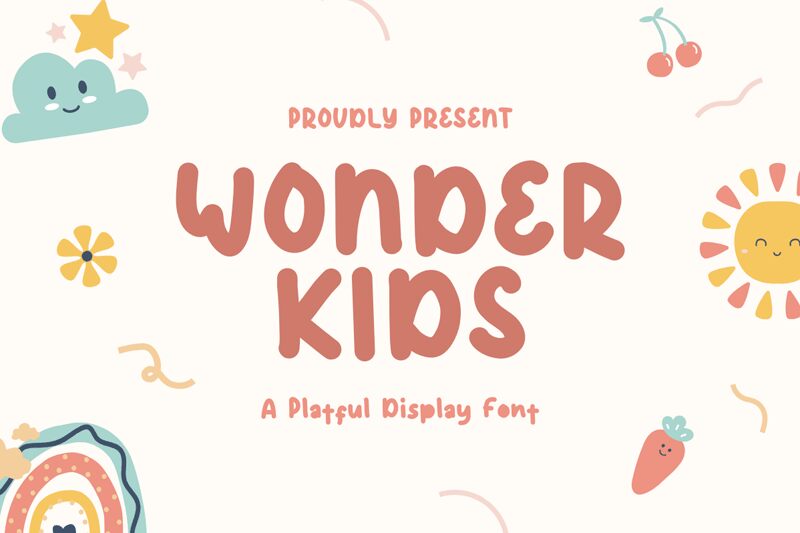
Wonder Kids font is a free comic font by Muhammad Yafinuha with a whimsical and casual visual style. The approachability of this typeface is ideal for both children’s projects and projects that require a child-like aesthetic. Its contemporary, friendly and youthful design is both cheerful and legible.
This font is suitable for headings, titles and logos, as well as product packaging, posters, branding, social media, invitations and labels. Using it for books or children’s books, both in titles and in content text is another great option which is bound to produce beautiful results.